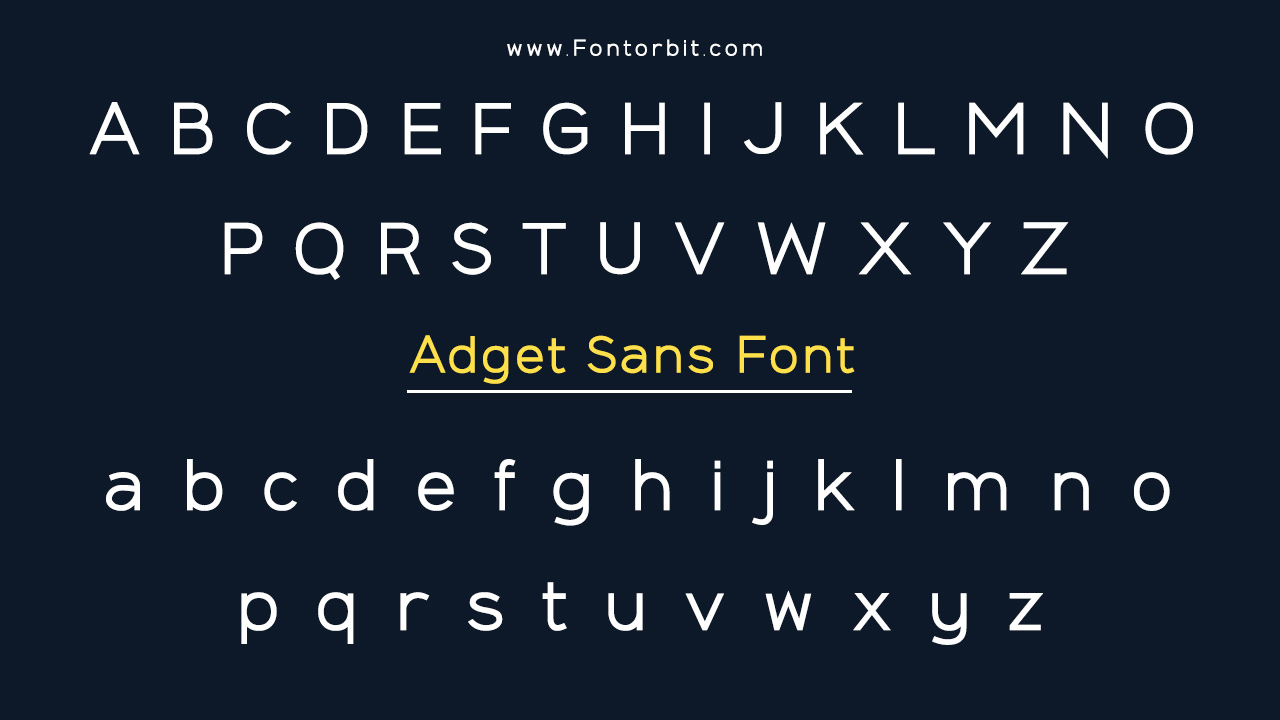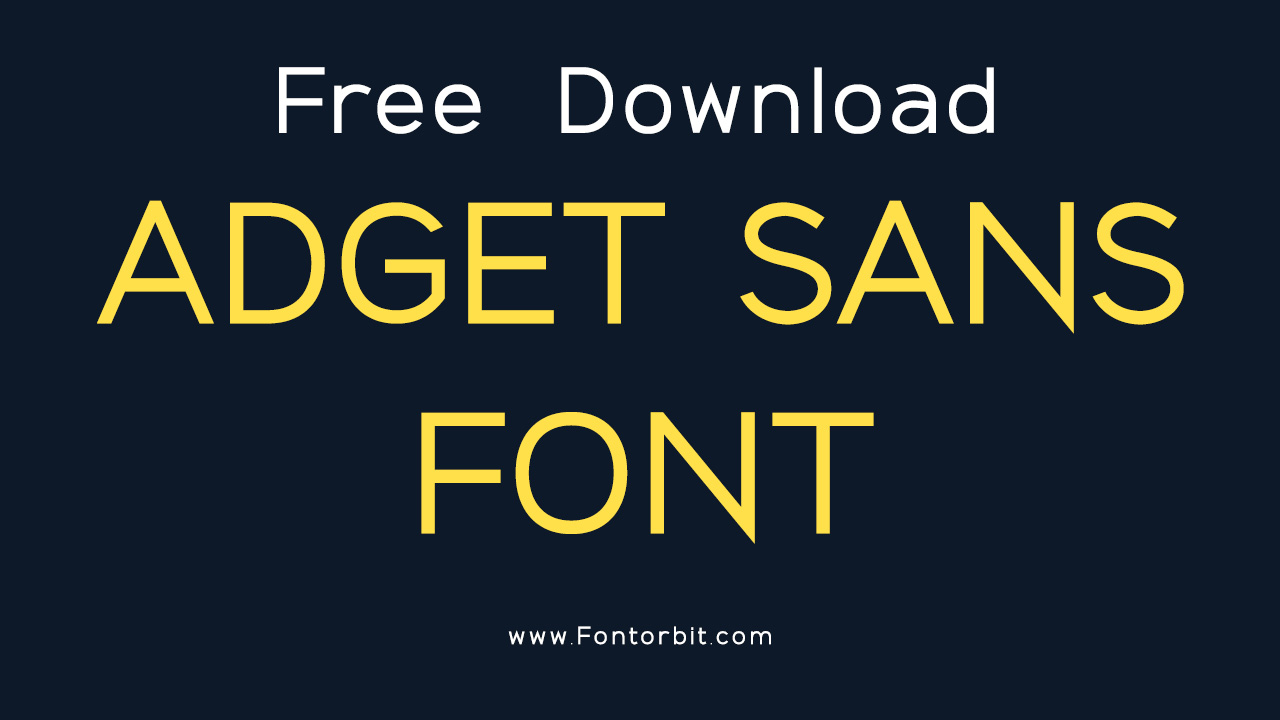
Adget Sans is a modern sans-serif typeface designed by Adam Greasley and published by Wearecolt. It was first released in 2023.
This font is part of the Wearecolt foundry collection and is known for its clean, versatile design that works well in print and digital mediums. Its geometric structure and slightly rounded corners offer a stylish yet functional aesthetic, making it a go-to for various design projects.
Notable Uses Of Adget Sans
Adget Sans is ideal for many applications, particularly where a clean and professional look is required. It has been successfully used in:
- Branding and logo design
- Website headers and UI elements
- Print materials like brochures and posters
- Corporate presentations
- Editorial design for magazines and books
- Social media graphics
You should consider using Adget Sans in projects that need a modern and minimalist design. Its clean lines make it perfect for:
- Corporate identity and branding
- Digital advertisements
- User interface (UI) and user experience (UX) designs
- Presentations and pitch decks
- App and web design
Adget Sans is a well-crafted, modern sans-serif font that offers great versatility. Whether you need it for branding, web design, or print, it provides the professional touch required for any design project. Its wide range of weights ensures flexibility, and its geometric shapes keep things clean and structured.
7.Does Adget Sans Support Multiple Languages?
Yes, Adget Sans supports multiple languages, including most Latin-based languages.
8.Can I Use Adget Sans In A Logo?
Yes, it’s a great choice for logos due to its clean and modern look.
9.Is Adget Sans Suitable For Print Design?
It’s well-suited for both print and digital media.